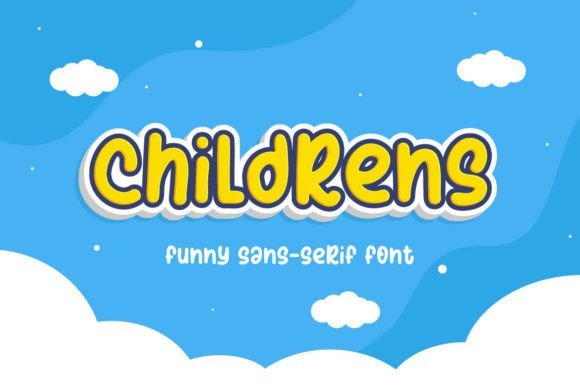
Bringing Joy to Your Designs: The Magic of Childrens Font
Do you remember the feeling of pure excitement when you first held a coloring book in your hands? The vibrant colors, the fun characters, and the endless possibilities of creativity – it’s a moment that sparks imagination and sets the stage for a lifetime of artistic expression. As designers, we strive to recreate that sense of wonder and playfulness in our work, and that’s where the Childrens Font comes in.
This delightful comic display font is specifically designed to bring happiness to each word, making it the perfect companion for designers who want to add a touch of whimsy to their projects. Whether you’re working on a comic book, a school project, or a children’s book, Childrens Font is sure to captivate your audience and leave a lasting impression.
Children’s Font Key Features
- Font Family: A custom-designed font specifically created for children, featuring rounded shapes and friendly characters.
Childrens Font Review
Childrens Font is a cute and playful font that’s perfect for kids-related designs. ✨ It has a childlike charm that’s hard to resist, making it an excellent choice for projects like children’s books, educational materials, or websites.
Here are some of its standout features:
- ✨ Highly customizable: Childrens Font offers a range of options for customizing its appearance, including different colors, sizes, and line styles.
- ✨ Easy to read: Despite its playful nature, the font is still easy to read and understand, making it suitable for a wide range of audiences.
- ✨ Versatile: Childrens Font can be used for various design elements, from headings to body text, and even for creative elements like quotes or titles.
- ⚠️ Limited versatility for professional projects: While Childrens Font is perfect for kids-related designs, it might not be the best choice for more formal or professional projects, where a more sophisticated font is required.
- ⚠️ Potential for overuse: The font’s playful nature can be a double-edged sword – while it’s perfect for kids-related projects, it can also become overused or clichéd if not used carefully.
Overall, Childrens Font is a great choice for designers who want to create engaging and fun designs for kids. While it has its limitations, it’s a versatile and customizable font that’s sure to bring a smile to kids’ faces.
Tips: Use Children’s Font for titles and headings to create a playful and engaging design.
Tips: Use Children’s Font for illustrations and graphics to create a whimsical and childlike feel.
Tips: Use Children’s Font for headings and titles to create a fun and engaging presentation.
Children’s Font is perfect for:
- Children’s book covers and illustrations
- Children’s educational materials and worksheets
Alternatives to “Childrens Font” for Designers